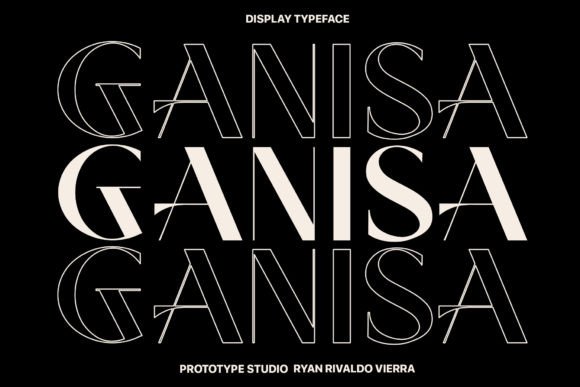
Introducing Ganisa Font, the ultimate display typeface that will ignite your creativity and elevate your designs to new heights. Crafted by the renowned Ryan Vierra, Ganisa embodies a captivating blend of modern aesthetics and timeless elegance.
Indulge in the allure of its contrasting strokes, where sharp angles dance alongside graceful curves. Ganisa's bold presence commands attention, making it an ideal choice for fashion magazines, where it will showcase your latest trends with undeniable style.
Unleash your imagination and let Ganisa transform your logos and branding into unforgettable masterpieces. Its versatile nature adapts seamlessly to both traditional and contemporary designs, ensuring that your brand identity shines through with confidence and charisma.
Dive into the vibrant world of social media, where Ganisa's captivating charm will enchant your followers. Craft eye-catching posts and stories that captivate and inspire, leaving a lasting impression that will keep them coming back for more.
But Ganisa's allure extends far beyond the confines of digital screens. Its artistic essence finds a home in countless other creative endeavors, from posters and flyers to invitations and greeting cards. Allow Ganisa to add a touch of sophistication and allure to any project, leaving an indelible mark on the hearts and minds of your audience.